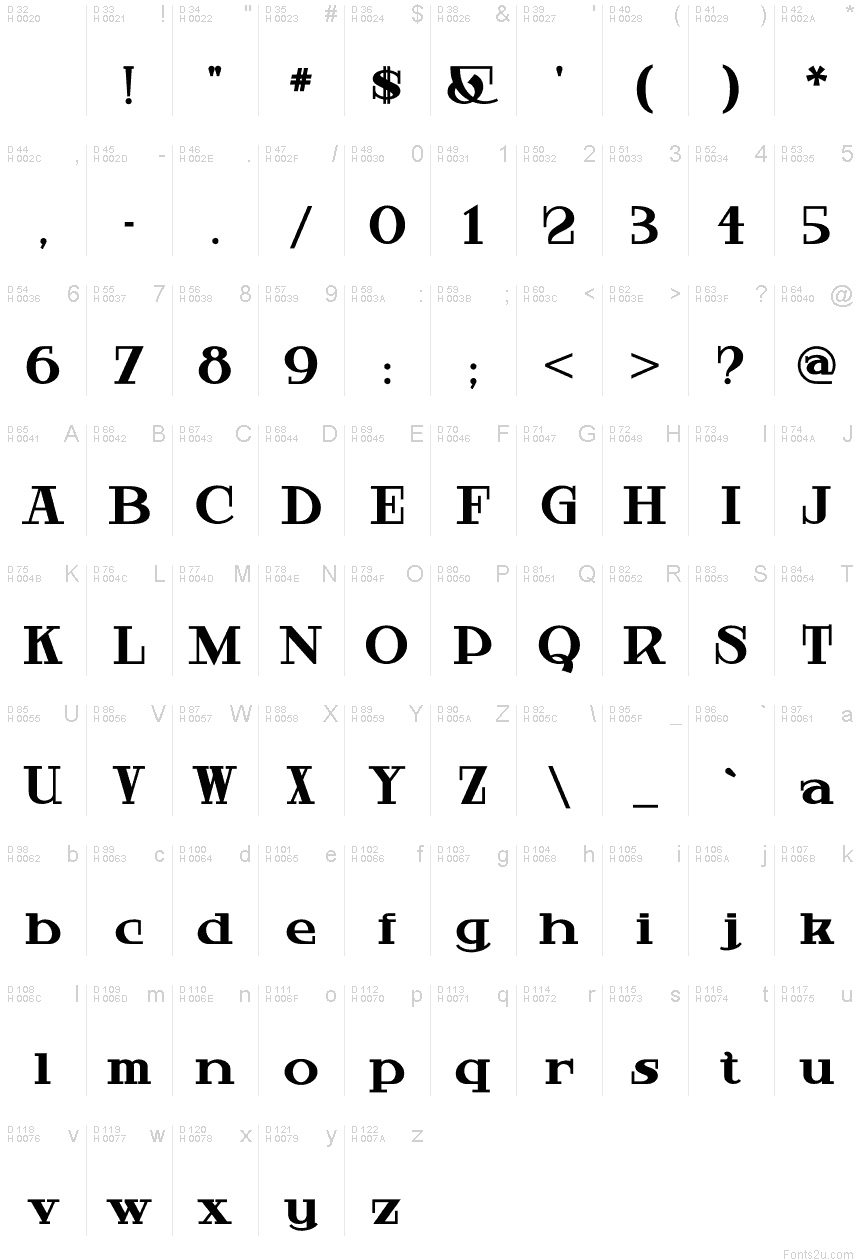
HardlyWorthit
Hardly Worthit font by Nick Curtis is a free retro serif font that hits like a bold poster from a smoky mid‑century jazz club. Massive vertical strokes, tight spacing, and chunky slabs create a dense, inky texture that feels almost pressed into the page. The tall, squared shapes give words a structured, architectural weight, while the rounded curves keep it from feeling cold or mechanical.
Using Hardly Worthit, headlines don’t whisper-they crash onto posters, album covers, book jackets, gig flyers, retro branding, signage, and bold editorial pages. This free font thrives at large sizes where its thick strokes and compact rhythm can really dominate the layout. Pair it with a clean, light geometric sans for body text to let Hardly Worthit handle all the drama in your hierarchy.